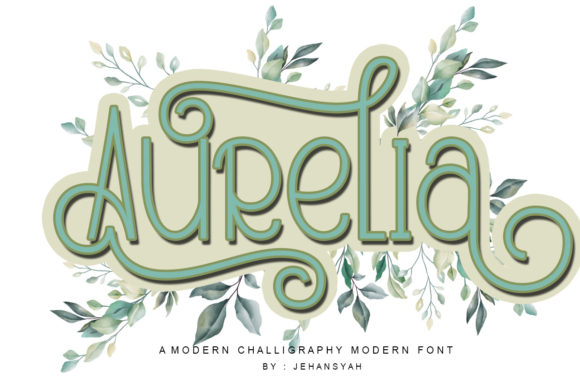
The Designer’s Delight: Getting to Know Aurelia Font
I’ll never forget the time I was working on a fashion branding project, and my client asked me to create a logo that exuded elegance and sophistication. I scoured the internet for the perfect font, but nothing seemed quite right. That was until I stumbled upon Aurelia Font. Its thin, distinct, and organic curves immediately caught my eye, and I knew I had found the one. In this article, I’ll share my experience with Aurelia Font, its features, and how to make the most of it in your designs.
An Honest Review of Aurelia Font
- ✨ Smooth curves that add a touch of elegance to any design
- ✅ Perfect for fashion branding or editorial designs
- 💃 Highly versatile and can be used for both digital and print projects
- 🎨 Great for creating a luxurious and sophisticated look
While Aurelia Font is an excellent choice for many projects, there are a few things to keep in mind:
- ⚠️ May not be suitable for body text due to its thin nature
- 🤔 Limited availability of certain OpenType features in some software
The Story Behind Aurelia Font
Aurelia Font was designed by a team of typographers who wanted to create a font that embodied the elegance and sophistication of high-end fashion. Inspired by classic serif fonts, they crafted Aurelia with smooth curves and a thin, distinct appearance. The result is a font that’s perfect for fashion branding, editorial designs, and any project that requires a touch of luxury.
Q: Is Aurelia Font suitable for body text?
A: While Aurelia Font is beautiful, it’s not ideal for body text due to its thin nature. It’s best used for headlines, titles, or short paragraphs.
Q: Does Aurelia Font support OpenType features?
A: Yes, Aurelia Font supports OpenType features like ligatures, stylistic alternates, and glyphs. These features can be accessed in compatible software like Adobe Creative Cloud.